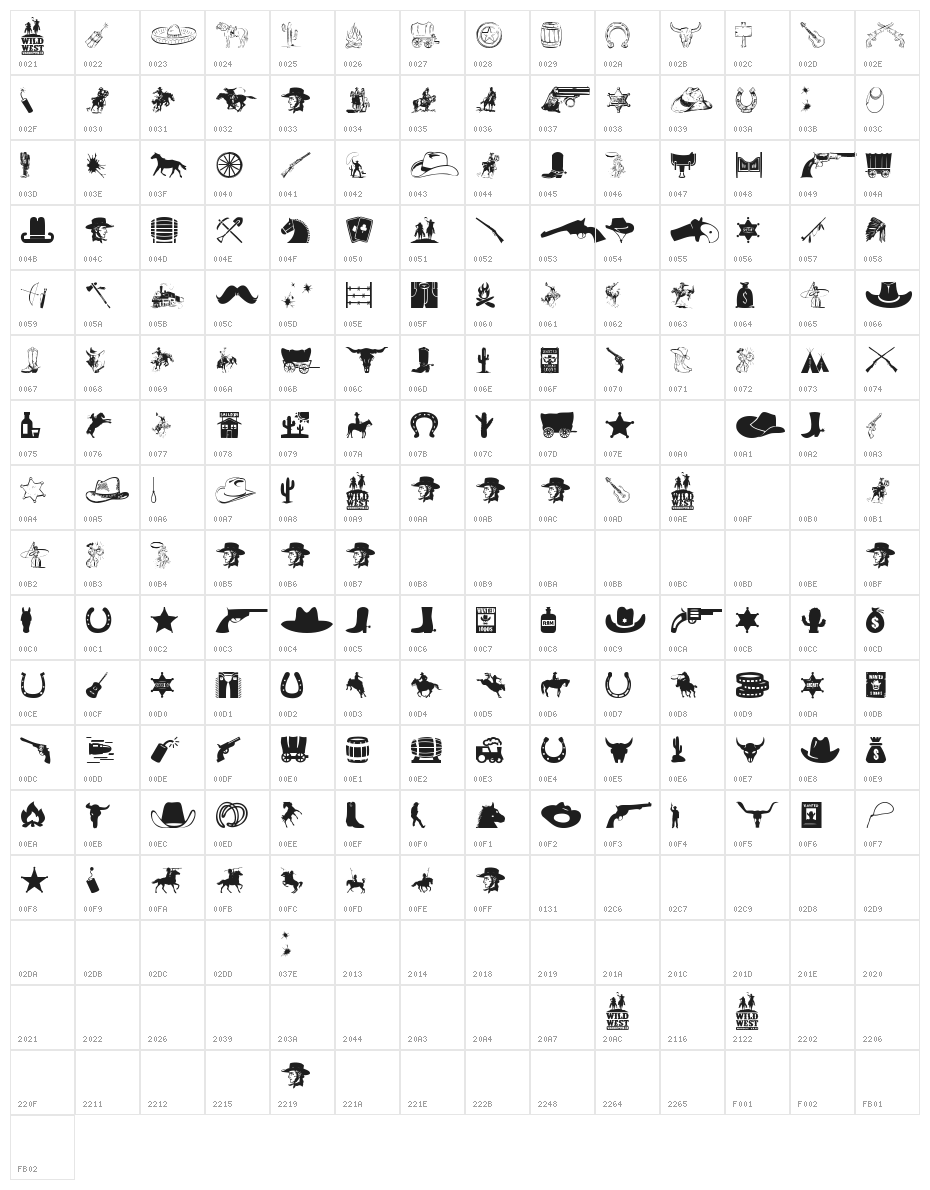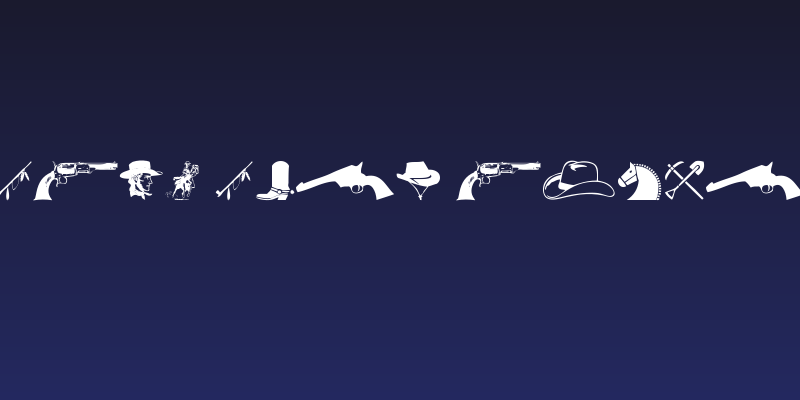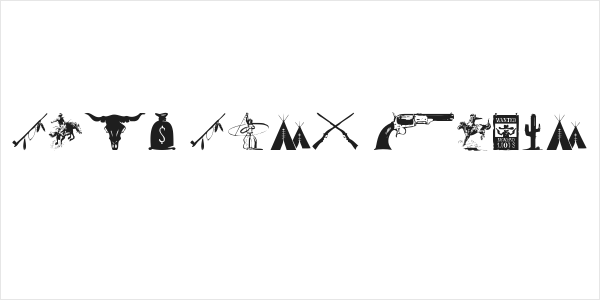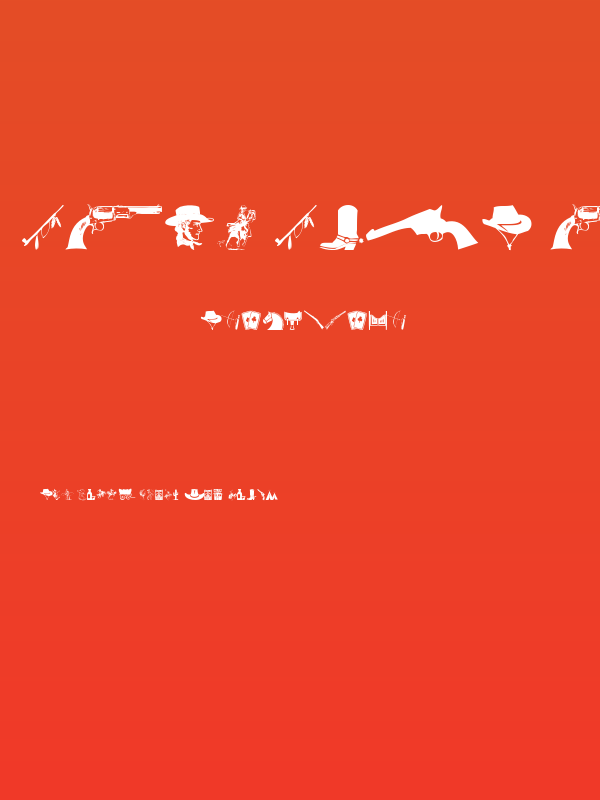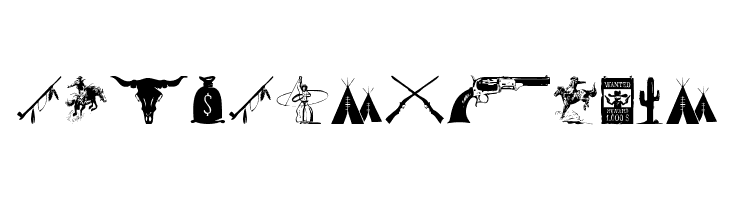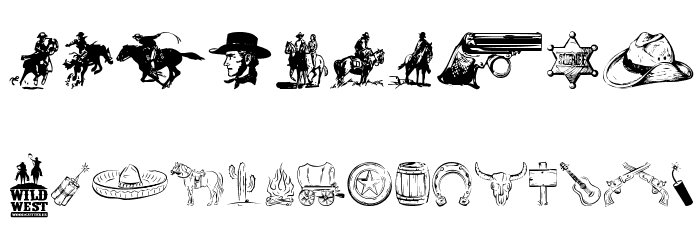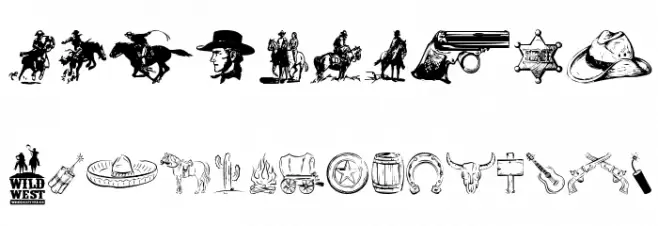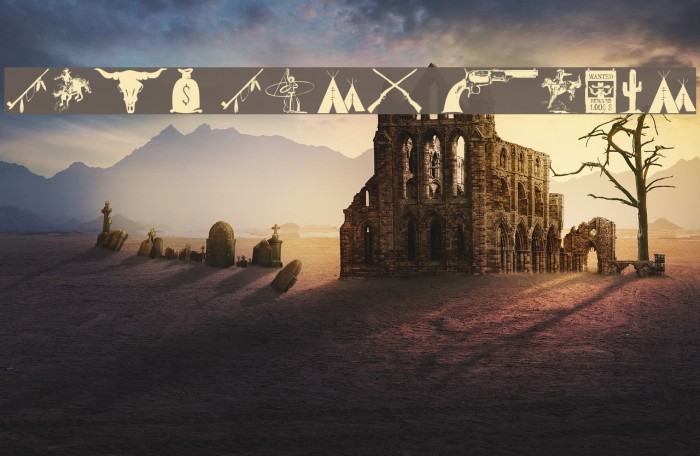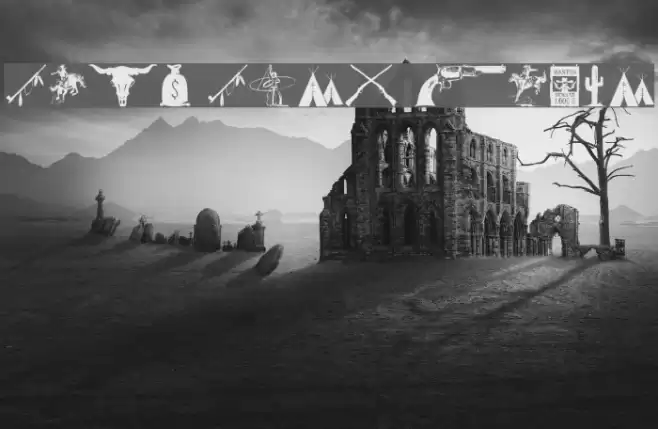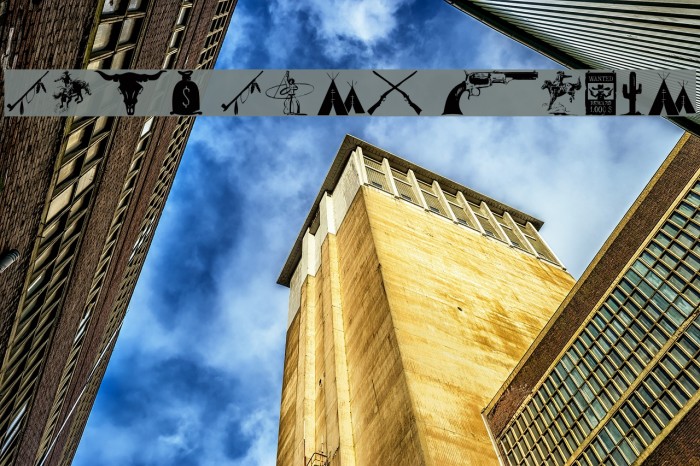
Wild West Icons Font
A decorative icon set featuring detailed Wild West-themed illustrations, including cowboys, hats, boots, guns, horses, cacti, wagons, and sheriff badges. The icons are bold, high-contrast, and rendered in solid black silhouettes with some intricate line details, evoking a vintage Western aesthetic.
| Overall Style | Decorative, Vintage, Western |
| Use Case | Logos, Headlines, Themed graphics, Posters |
| Proposed Projects | Posters, event flyers, themed party invitations, branding for Western-themed businesses, educational materials, digital stickers. |